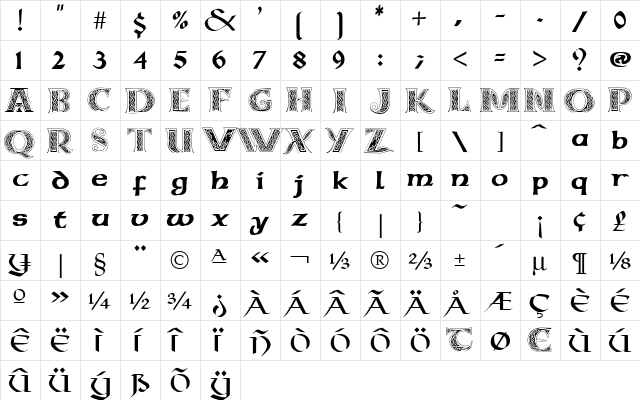
Celticmd Decorative w Drop Caps
Design Context for Celticmd Typeface
Celticmd is built around its visual character rather than neutral utility — its distinctive forms are designed to make an impression at display sizes.
Font Pairing: Pair with a clean neutral sans-serif for body copy to let Celticmd's character lead without overwhelming the composition.
Pro Tip: Use Celticmd exclusively at display sizes — it was designed to be seen, not read at length. Let a neutral companion handle body copy.